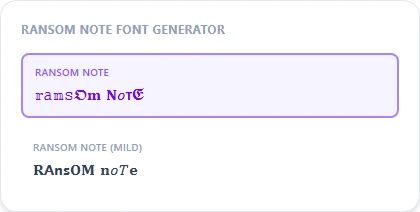
Ransom Note Font Generator
A real ransom note reads as chaotic because every letter looks like it was cut from a different source: a different alphabet, a different weight, a different case, sometimes a different size, glued down crookedly next to the rest. This generator reproduces that with real Unicode text instead of an image: each character is deterministically assigned one of seven different Unicode letter alphabets (bold, italic, double-struck, bold gothic, sans bold, monospace, small caps) and often has its case flipped, so the same word never settles into one consistent style the way a normal fancy-font substitution does.
That's a different technique from this site's Creepy or Cursed styles, which stack combining marks above and below each letter for a zalgo-style distortion. Ransom Note never touches the letter shape itself or adds marks — it swaps which alphabet and case renders each character, so the text stays fully legible while still reading as visually mismatched.
Ransom Note Font Generator style examples: Ransom Note, Ransom Note (Mild), rendered on the word "Ransom Note"
Seven alphabets, one letter at a time
Instead of mapping your whole text through one Unicode alphabet the way Bold or Fraktur do, Ransom Note picks a different alphabet for each individual character from a pool of seven: bold, italic, double-struck, bold gothic, sans bold, monospace, and small caps. Which one lands on a given letter, and whether that letter's case gets flipped, is decided by a seeded pseudo-random function keyed to that letter's character code and position, not real randomness. That means the exact same input always renders the exact same 'random-looking' way, every time, on every device — no flicker between server and client, no two people seeing a different result for the same word.
Ransom Note vs. Ransom Note (Mild)
Ransom Note draws from the full seven-alphabet pool with a 50% chance of flipping each letter's case, the most chaotic and clipping-like version, best for a short word or headline. Ransom Note (Mild) narrows the pool to four gentler alphabets (bold, italic, sans bold, small caps) and lowers the case-flip chance to 25%, staying readable over a longer sentence while still avoiding the single-uniform-style look of a normal fancy font.
Is this the same as the Creepy or Cursed font generator?
No. Creepy and Cursed stack Unicode combining marks above, below, and through each letter for a zalgo-style distortion. Ransom Note never adds marks or changes letter shapes beyond swapping which Unicode alphabet and case renders each character, so it stays fully legible instead of degrading into static.
Does this actually look like a real cut-and-paste ransom note?
As close as real Unicode text substitution can get without using an image editor or AI image generation, which this site doesn't do. It approximates the mismatched-clippings look by mixing seven different Unicode letter alphabets and case per character instead of pasting actual scanned letters.
Why does the same word always come out looking the same way?
The alphabet and case chosen for each letter comes from a seeded pseudo-random function based on that letter's character and position, not true randomness, so the result is stable across repeated visits and identical on the server and in your browser.
What's the difference between Ransom Note and Ransom Note (Mild)?
Ransom Note draws from all seven base alphabets with a 50% chance of flipping each letter's case, for maximum chaos on a short word. Ransom Note (Mild) uses a smaller pool of four alphabets and a lower 25% case-flip chance, easier to read over a full sentence.
Why do some numbers or punctuation stay in a plain font?
Not every Unicode alphabet in the pool has a matching digit or symbol defined, for example small caps has no digits, so when the random pick lands on one of those, that character falls back to its plain form instead of breaking. That's expected, not a bug.